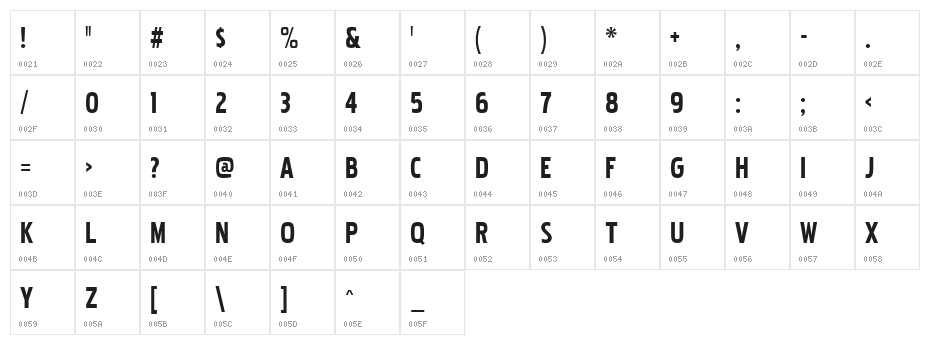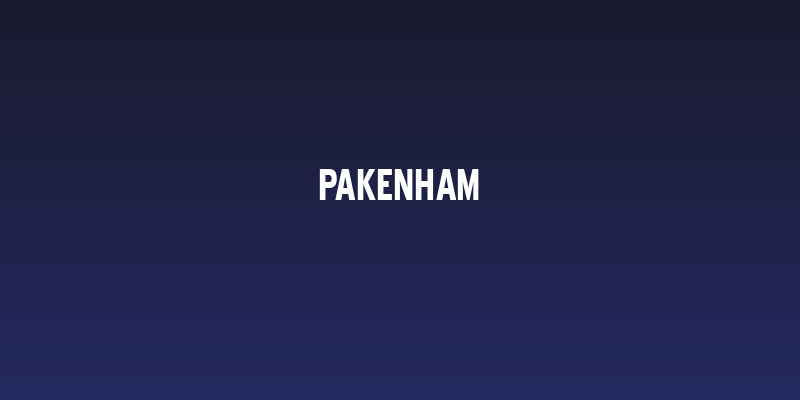
Pakenham Font
Pakenham Description
This font exhibits a bold and modern sans-serif style, characterized by its strong, clean lines and uniform stroke width. The uppercase and lowercase letters are well-proportioned, offering a sense of balance and readability. The numerals and special characters maintain the same boldness, ensuring consistency across all glyphs. The font's design is straightforward yet impactful, making it suitable for a variety of applications where clarity and emphasis are desired.
| Use Case | Headlines, Logos, Advertising |
| Proposed Projects | Ideal for branding, advertising, headlines, and digital media where a strong, modern presence is needed. |